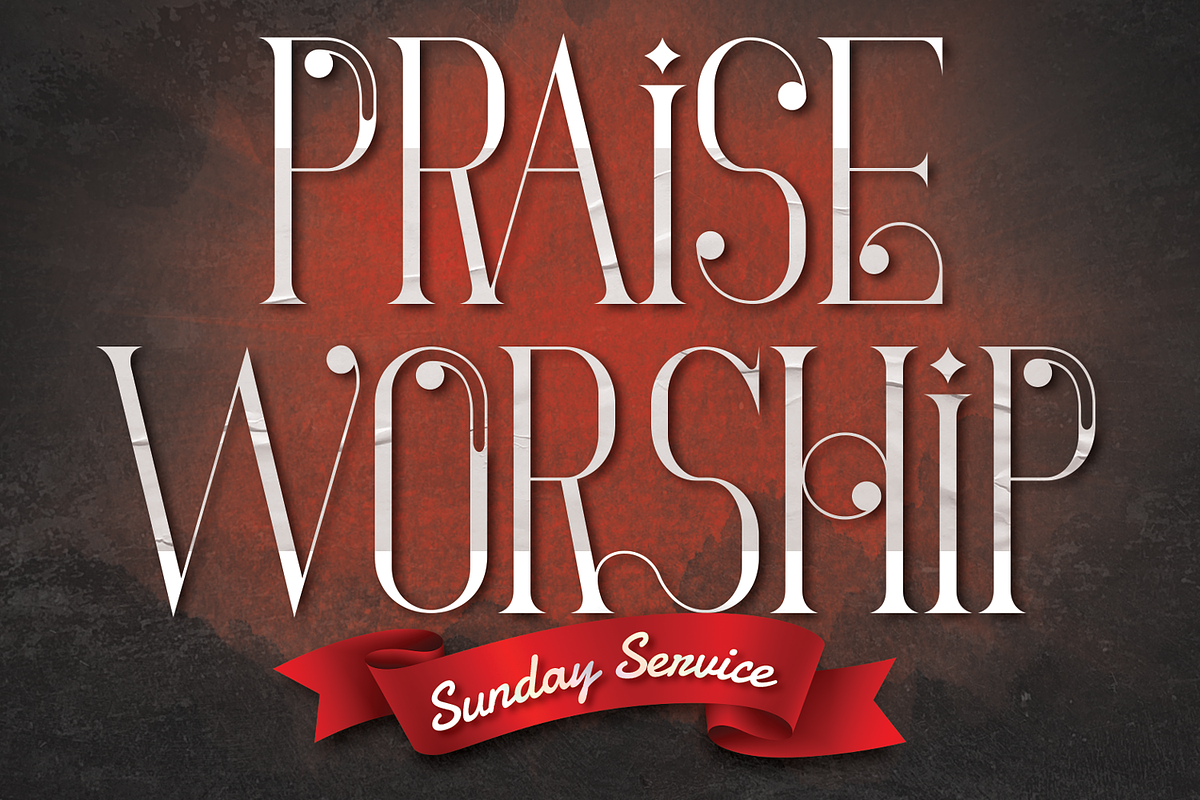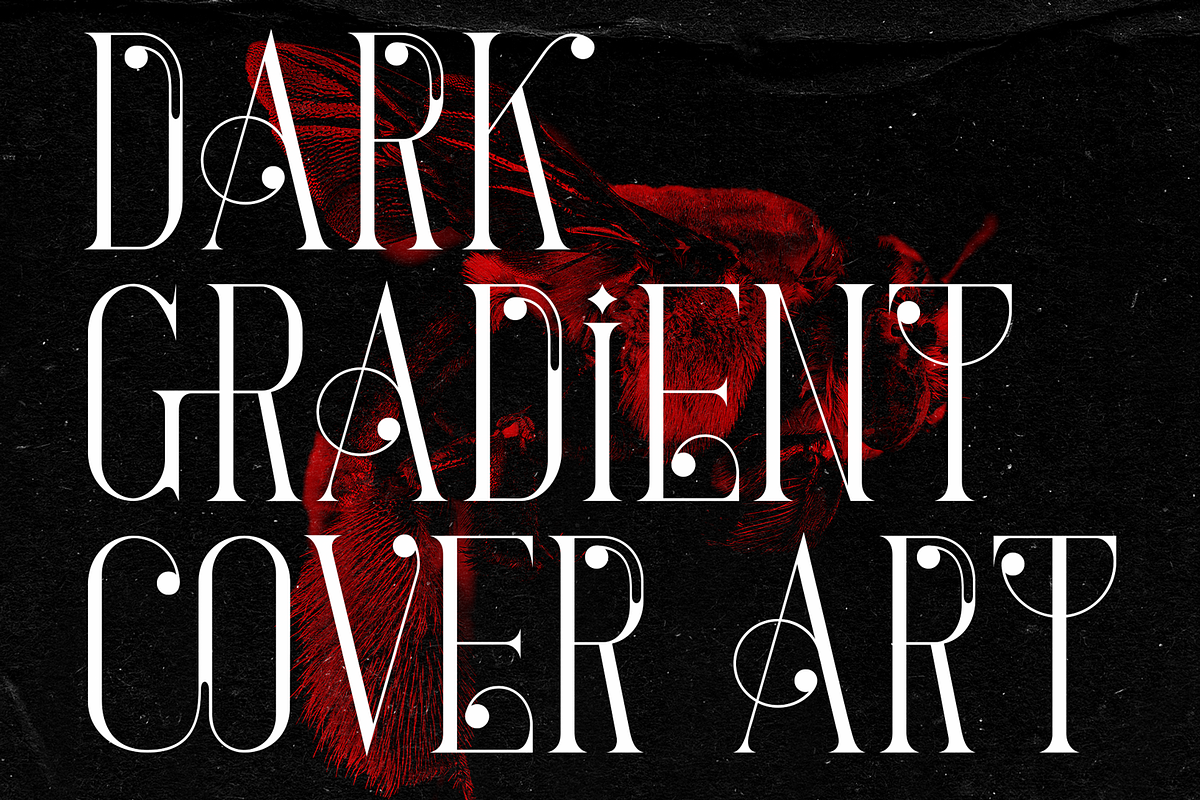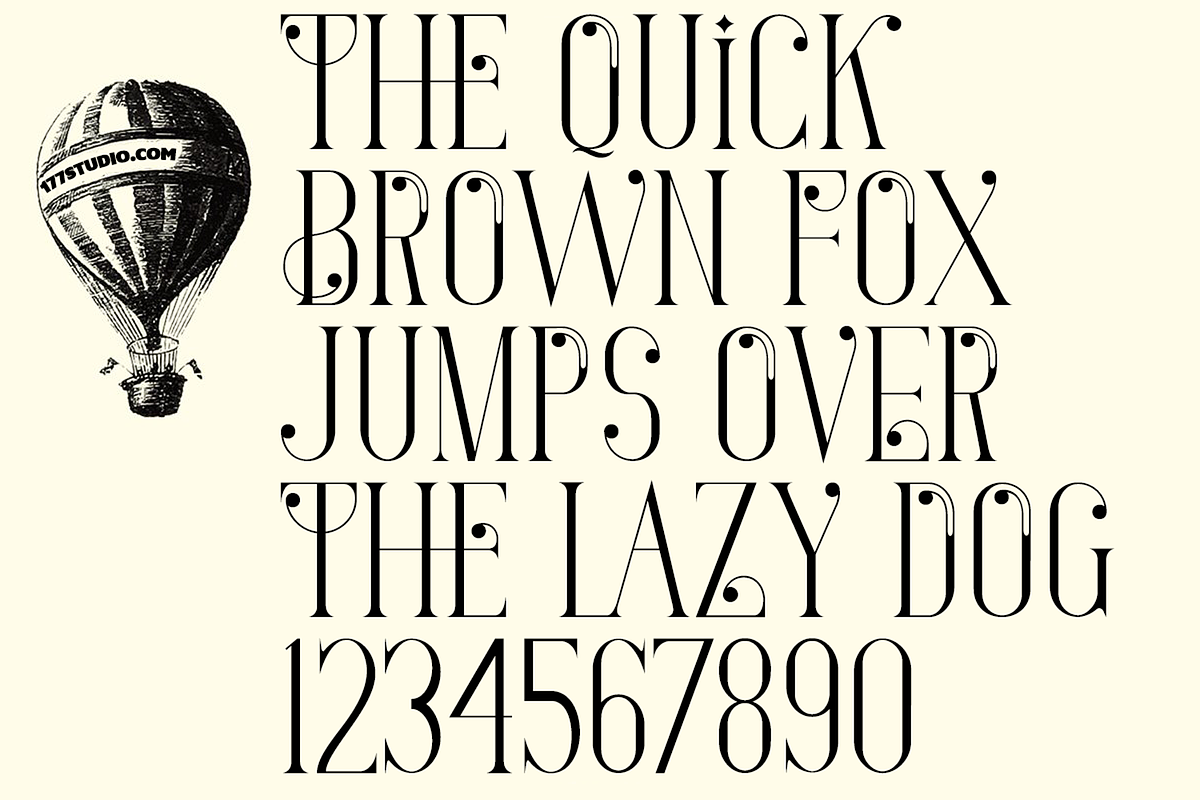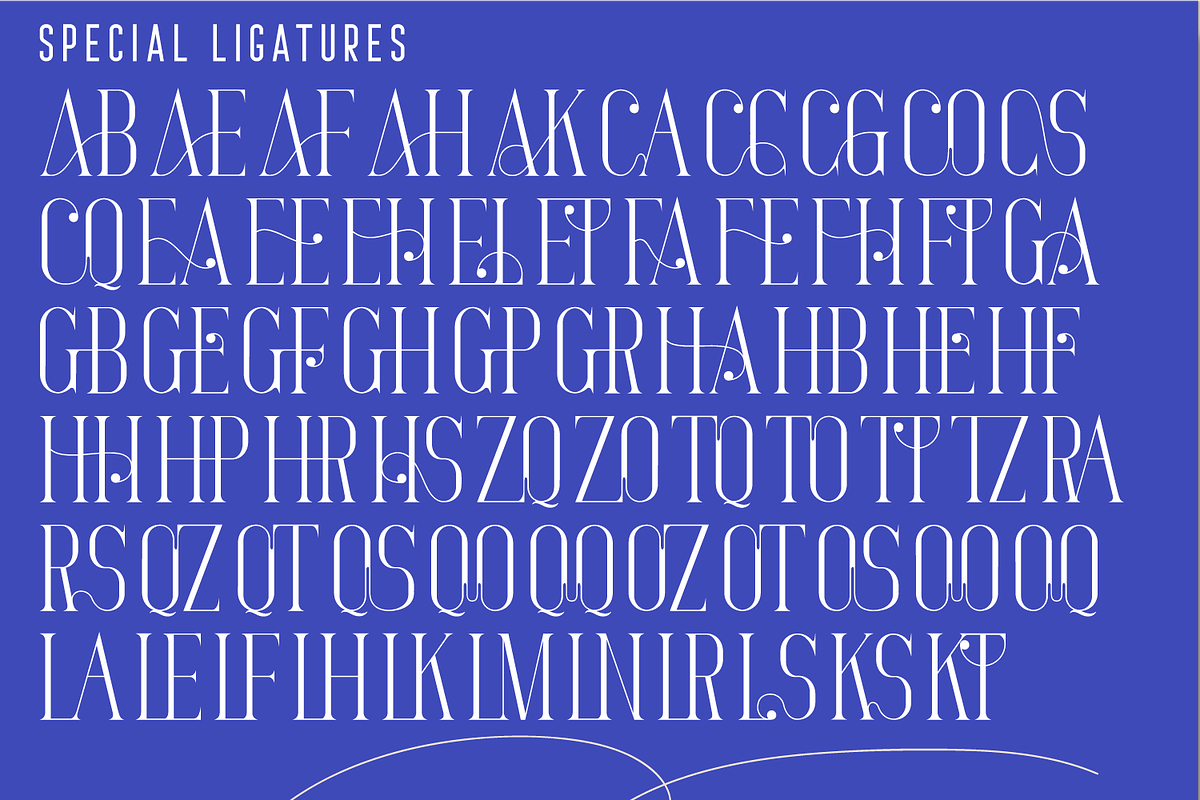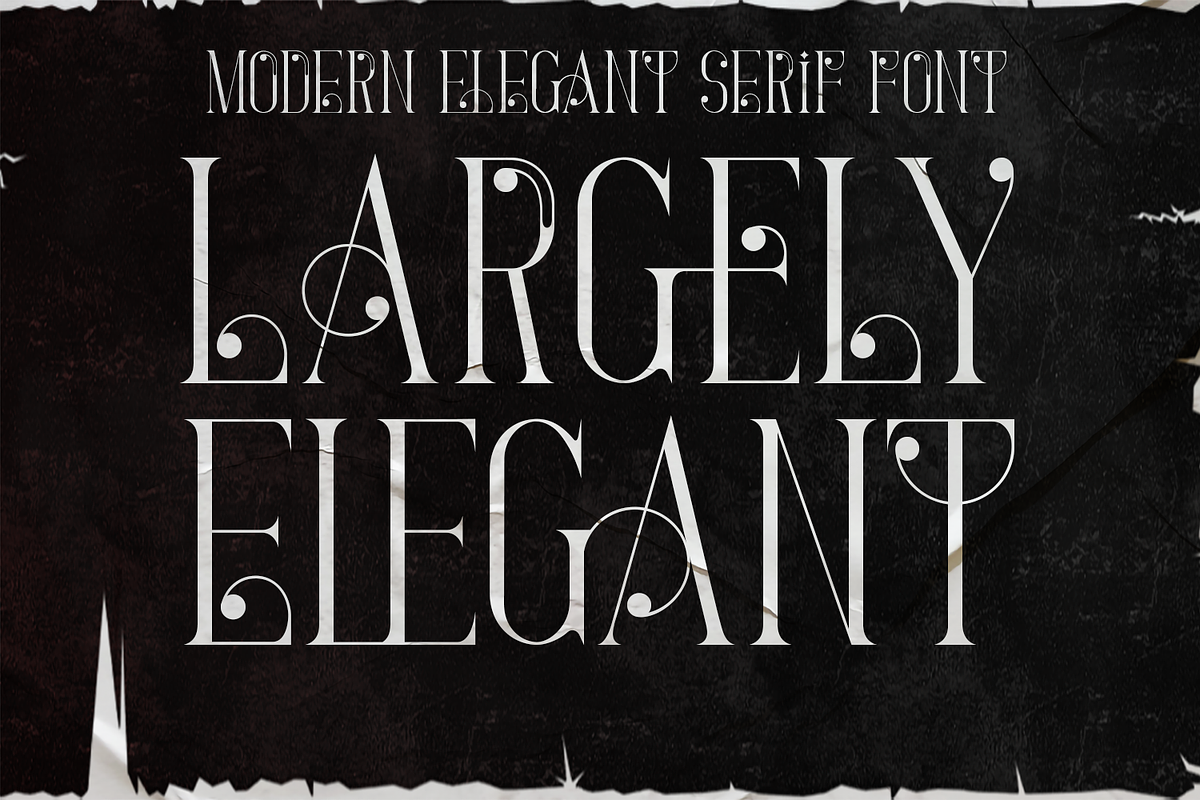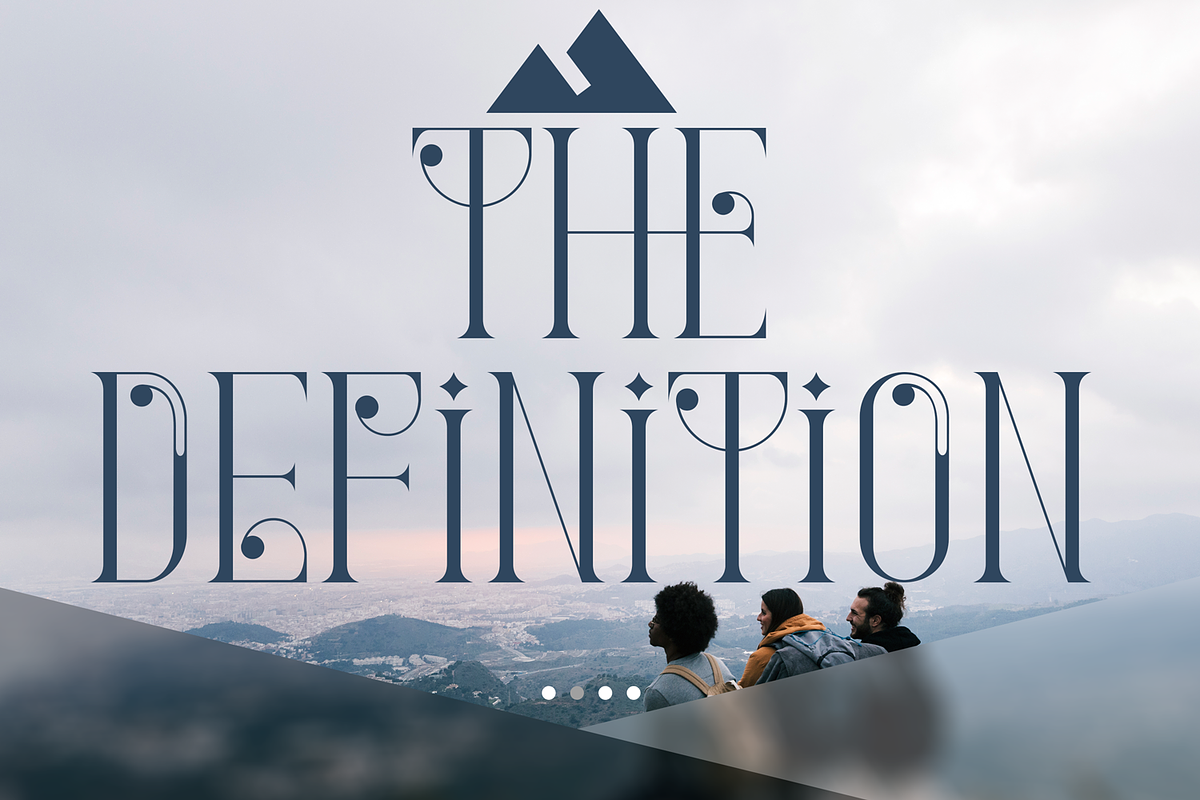
Largely Elegant Font
Largely Elegant Font is luxury, clean typeface to enchant your next project. They are loaded alternate glyphs, ligatures and multilingual support. Very versatile fonts that works great in large and small sizes. It's perfect choice for people looking for clean, modern, minimalist, elegant, beauty design styles. Suitable for almost any graphic designs such as logo, branding materials, business cards, gift cards, t-shirt, cover, thumbnail, print, poster, photography, quotes .etc
To make it look more unique, here we prepared some ligatures:
AB AE AF AH AK CA CC CG CO CS CQ EA EE EH EL ET FA FE FH FT GA GB GE GF GH GP GR HA HB HE HF HH HP HR HS ZQ ZO TQ TO TT TZ RA RS QZ QT QS QO QQ OZ OT OS OO OQ LA LE LF LH LK LM LN LR LS KS KT
Include Fancy Style on Every Uppercase and Some Lowercase
Largely is also included full set of:
- Special Ligatures